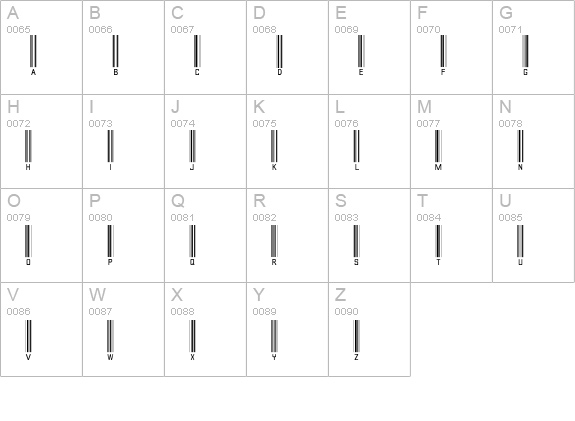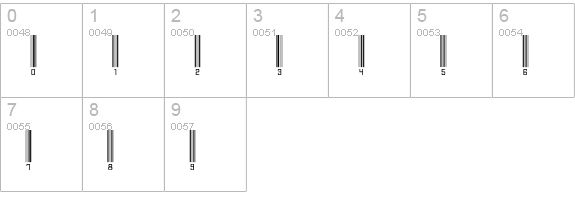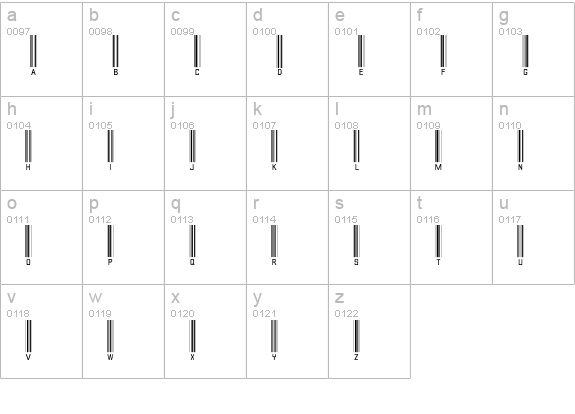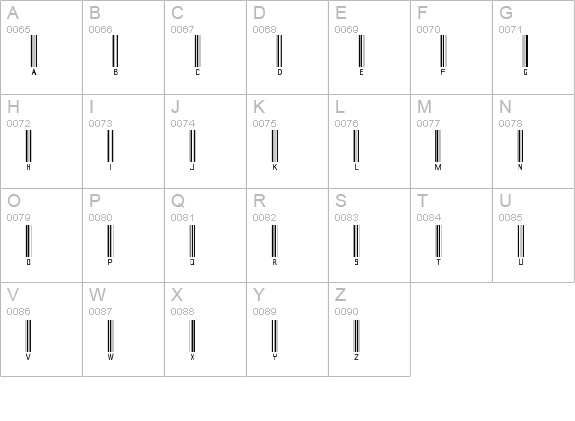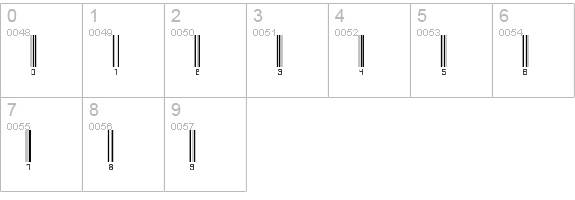
The Barcode Font is a versatile and practical typeface designed specifically for creating barcodes with ease and precision. This font is perfect for businesses, retailers, and anyone in need of generating barcodes for products, inventory, or tracking purposes. With its sleek and modern design, the Barcode Font ensures that your barcodes are clear, accurate, and easy to scan. What sets this font apart is that it is available for free download at FontsMarket.com. This means that you can access this valuable tool at no cost, making it a cost-effective solution for all your barcode needs. Whether you are a small business owner looking to streamline your inventory process or a graphic designer working on a project that requires barcodes, the Barcode Font is the ideal choice. By incorporating the Barcode Font into your designs, you can add a professional touch and ensure that your barcodes are consistent and reliable. With its user-friendly features and high-quality design, this font is a must-have for anyone looking to create barcodes effortlessly. Download the Barcode Font for free today at FontsMarket.com and take your barcode creation to the next level.